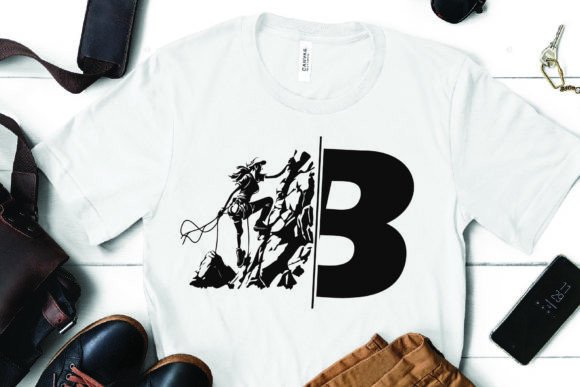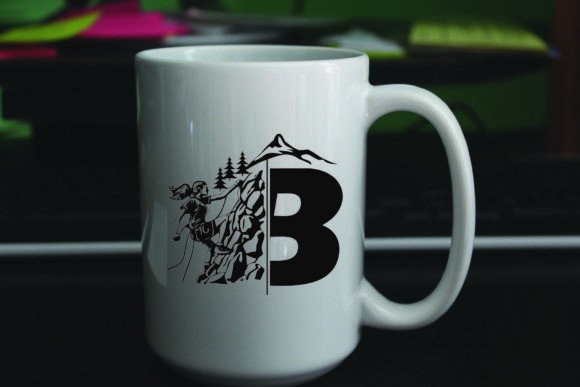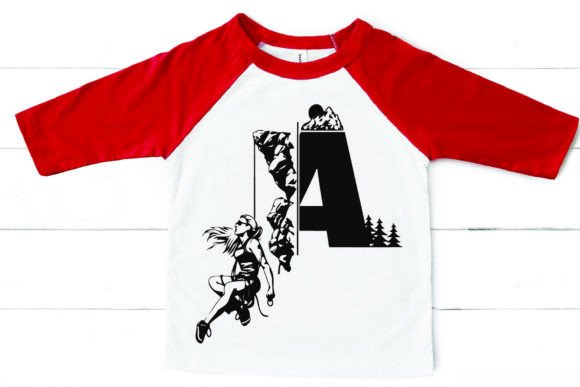
Introduction to Mountain Climbing W Font
As a designer, there’s no better feeling than finding the perfect font to elevate your creative project. It’s like stumbling upon a hidden treasure that brings your entire design to life. I still remember the moment I discovered the Mountain Climbing W Font – it was love at first sight. Its bold, summery feel and unique mountain elements on each character made my heart skip a beat. I knew right then and there that this font was going to be an incredible asset to my design library.
Mountain Climbing W Font is a high-quality, free download that’s perfect for designers of all levels. Its transparent background and versatile design make it an ideal resource for any creative project, from brochures to social media graphics. Whether you’re working on a summer-themed campaign or a project that requires a touch of adventure, this font is sure to bring your design to the next level.
Key Features of Mountain Climbing W Font
- Unique, hand-drawn design for a creative project, ideal for outdoor enthusiasts and adventure seekers.
- High-quality, vector-based font with a transparent background, perfect for use in various design applications.
- Features a bold, modern style with a resolution of 300 DPI, suitable for use in print and digital applications.
- Includes a range of characters, including uppercase and lowercase letters, numbers, and punctuation marks, making it a versatile font for various creative projects.
- Designed to be easily scalable, allowing users to customize the font size and style to suit their specific design needs.
Honest Review: Mountain Climbing W Font
I recently stumbled upon the Mountain Climbing W Font and was excited to dive in and see what it had to offer. As a designer, I’m always on the lookout for high-quality design resources that can elevate my creative projects.
- ✨ The font has a unique, hand-drawn feel that’s perfect for projects that need a touch of personality.
- ✨ The transparent background option is a great feature for those who want to customize their designs.
- ⚠️ The font may not be suitable for projects that require a more formal or traditional look.
- ⚠️ Some users may find the font’s quirky feel to be too unconventional for their taste.
Overall, I’d say the Mountain Climbing W Font is a solid addition to any designer’s toolkit. While it may not be perfect for every project, its unique charm and high-quality design make it a great choice for creative endeavors.
How to Use Mountain Climbing W Font
Mountain Climbing W Font is a high-quality design resource ideal for creative projects that require a unique and adventurous feel. With its transparent background, this font is perfect for adding a touch of excitement to your designs.
Mountain Climbing W Font is perfect for designing:
- Outdoor-themed graphics and logos
- Adventure travel brochures and posters
- Mountain climbing and hiking event promotions